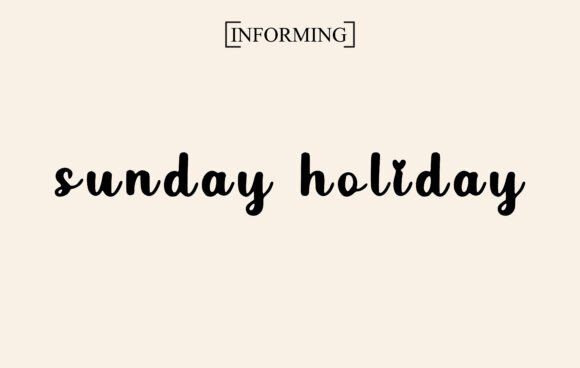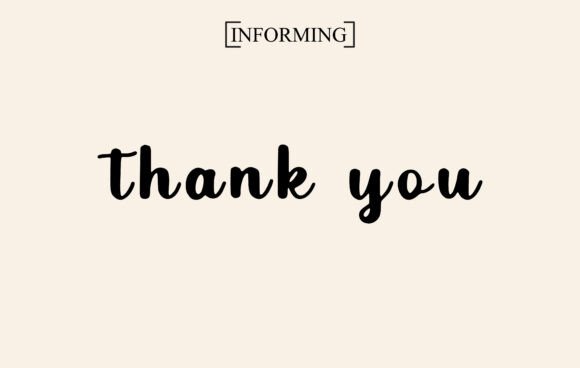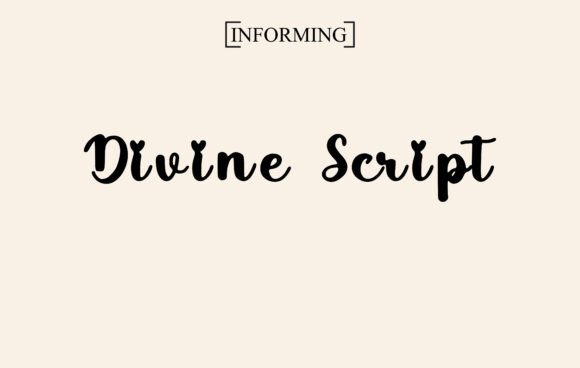
Introducing Divine Script Font: The Perfect Choice for Romantic Designs
Are you a designer or crafter looking for a font that exudes love, playfulness, and modern charm? Look no further than Divine Script Font, a sweet and playful handwritten font that is sure to capture your audience’s heart. With its unique heart-tipped strokes, Divine Script is perfect for love-themed designs, branding, greeting cards, and any project that requires a romantic flair with a modern twist.
The Characteristics of Divine Script Font
Divine Script Font boasts a range of characteristics that make it an ideal choice for designers and crafters. Its handwritten style gives it a personal and approachable feel, while its heart-tipped strokes add a touch of whimsy and romance. The font’s modern twist ensures that it remains fresh and relevant, making it perfect for a wide range of design projects.
What Makes Divine Script Font So Versatile?
One of the key benefits of Divine Script Font is its versatility. Its unique style makes it suitable for a wide range of design projects, from love-themed designs and branding to greeting cards and more. Whether you’re creating a romantic poster, a wedding invitation, or a social media graphic, Divine Script Font is sure to add a touch of elegance and sophistication.
Perfect for Love-Themed Designs
Divine Script Font is perfect for love-themed designs, such as Valentine’s Day cards, wedding invitations, and romantic posters. Its heart-tipped strokes and playful style make it an ideal choice for designers who want to create a sense of romance and whimsy in their designs. Whether you’re creating a design for a client or for your own personal project, Divine Script Font is sure to impress.
Great for Branding and Marketing Materials
Divine Script Font is not just limited to love-themed designs. Its modern twist and unique style make it an excellent choice for branding and marketing materials, such as logos, business cards, and social media graphics. The font’s playfulness and charm can help to add a touch of personality to your brand, making it more relatable and engaging to your audience.
Tips for Using Divine Script Font
Here are a few tips for using Divine Script Font in your designs:
• Use it for headings and titles to add a touch of elegance and sophistication.
• Pair it with a sans-serif font for a modern and playful look.
• Experiment with different colors and textures to add depth and interest to your design.
• Don’t be afraid to get creative and add your own personal touch to your design.
Why Designers and Crafters Love Divine Script Font
Designers and crafters love Divine Script Font for its unique style, versatility, and playfulness. The font’s heart-tipped strokes and modern twist make it an excellent choice for a wide range of design projects, from love-themed designs to branding and marketing materials. Whether you’re a professional designer or a crafty hobbyist, Divine Script Font is sure to become a favorite in your design arsenal.
In conclusion, Divine Script Font is a sweet and playful handwritten font that is perfect for designers and crafters who want to add a touch of romance and whimsy to their designs. Its unique heart-tipped strokes, modern twist, and versatility make it an ideal choice for a wide range of design projects. Whether you’re creating a love-themed design, branding materials, or greeting cards, Divine Script Font is sure to impress.